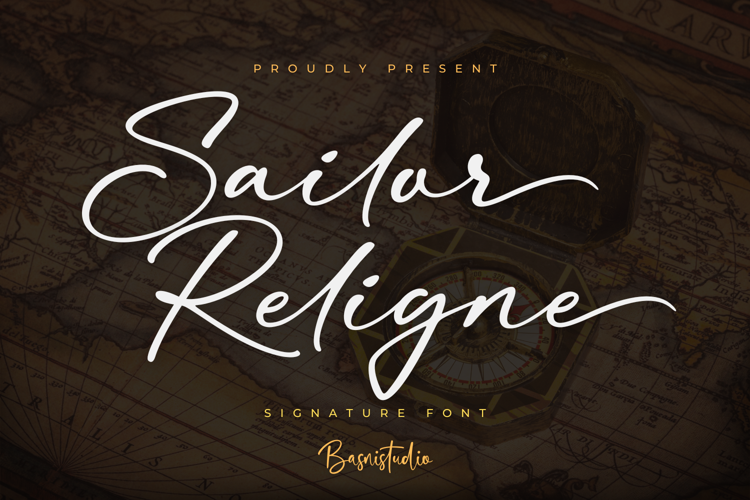
Sailor Religne Font
INTRODUCING Sailor Religne Signature Font
Sailor Religne is a Signature Font that adds a elegant, versatile touch to everything from branding and social media to invitations and packaging.